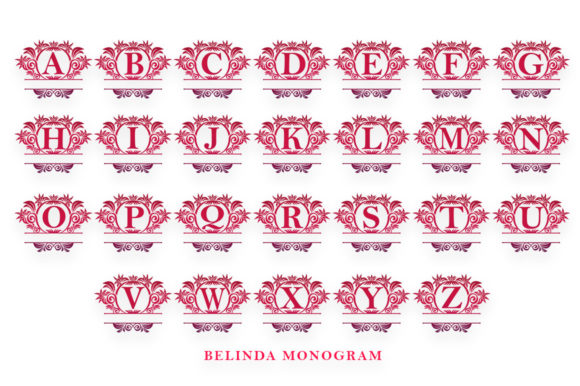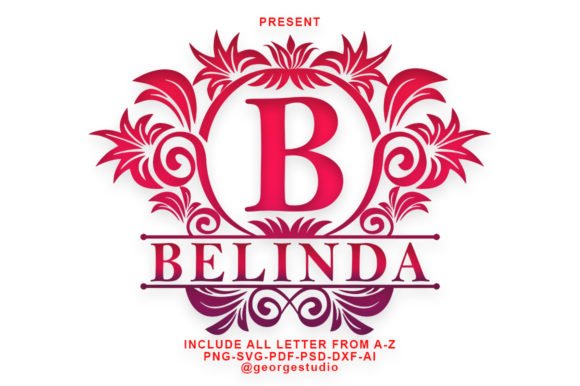
Discover the Timeless Charm of the Belinda Monogram Font
Have you ever stumbled upon a font that instantly sparks your creativity? For many designers, that moment comes when they discover the perfect combination of style and functionality. The Belinda Monogram Font is one such find, offering a charming and authentic feel that can elevate any design project.
This decorative font is perfect for creating beautiful stationery art, gorgeous invitations, eye-catching social media posts, and cute greeting cards. Its versatility and unique charm make it a valuable addition to any designer’s toolkit. Whether you’re a seasoned pro or just starting out, the Belinda Monogram Font is sure to bring a touch of elegance and sophistication to your designs.
Belinda Monogram Font Key Features
- Unique Characteristics: The Belinda Monogram Font features intricate monogram designs with ornate details, adding an elegant touch to designs.
- Font Style: This font is available in uppercase and lowercase letters, with various monogram styles to choose from.
Designer Review: Belinda Monogram Font
I recently had the chance to work with the Belinda Monogram Font, and I’m here to share my honest thoughts on its strengths and weaknesses. ✨
- The font’s elegant, classic design is perfect for high-end branding and wedding invitations. It’s sure to add a touch of sophistication to any project.
- The monogrammed letters are beautifully crafted, making it easy to create intricate designs without too much effort.
- The font is highly customizable, allowing you to adjust the size, color, and spacing to suit your design needs.
However, there are a few limitations to consider ⚠️:
- The font may not be suitable for casual or playful designs, as its classic design can come across as stuffy or formal.
- The monogrammed letters can be quite detailed, making them difficult to read at smaller font sizes.
- The font doesn’t come with a comprehensive character set, which may limit its use for languages that require special characters.
Overall, the Belinda Monogram Font is a solid choice for designers who want to create elegant, high-end designs. While it may not be suitable for every project, its customizability and beautiful design make it a great addition to any font library.
The Belinda Monogram Font is ideal for:
- Personalized gift tags and labels
- Monogrammed accessories and home decor
Tips for Getting the Most Out of the Belinda Monogram Font
For the best results, use the Belinda Monogram Font in combination with elegant graphics and minimalist design elements. Experiment with different font sizes and colors to create a unique look that suits your brand or occasion.